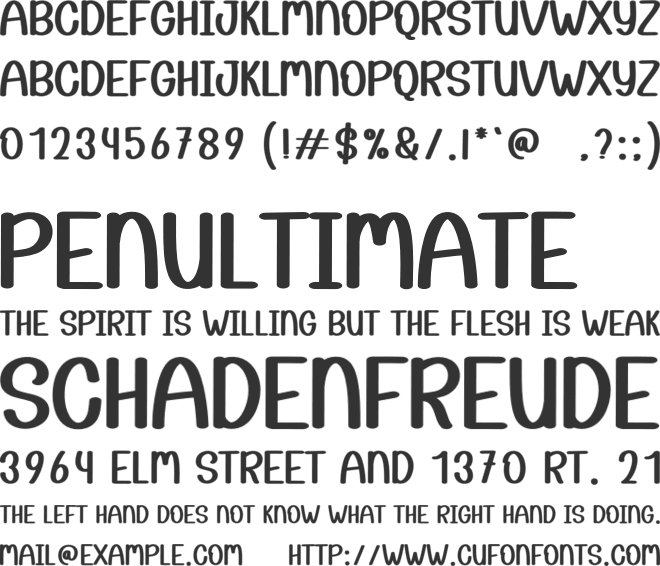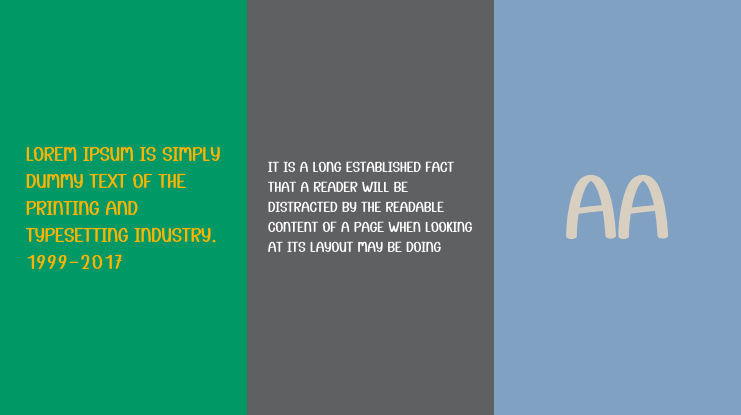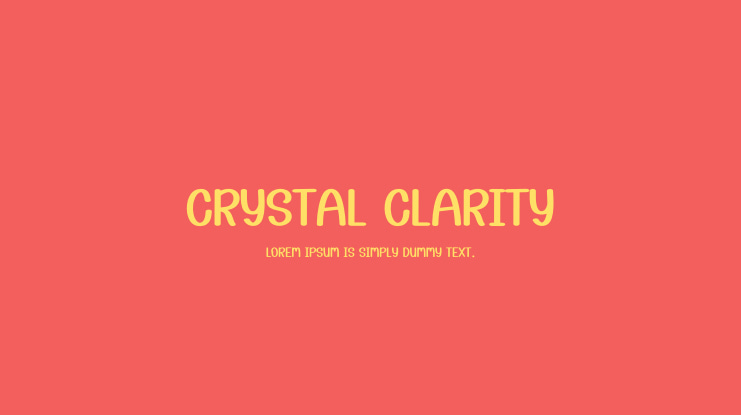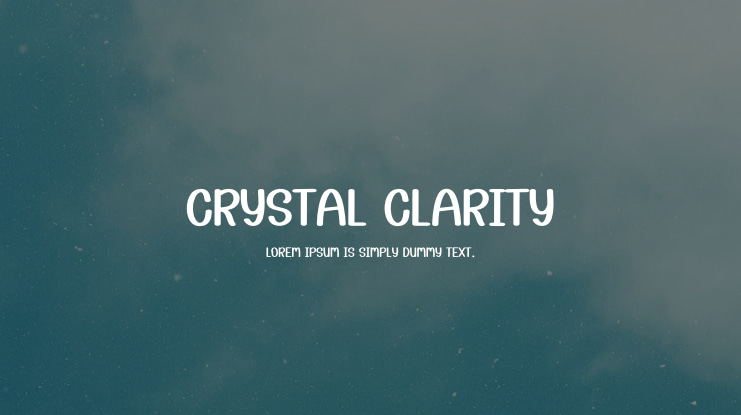
Crystal Clarity Font
Our latest styled fonts are perfect for numerous applications, including wall displays, wedding invitations, social media posts, logos, advertisements, product packaging, designs, labels, photography watermarks, invitations, stationery, and any project that requires a tasteful touch of handwriting.